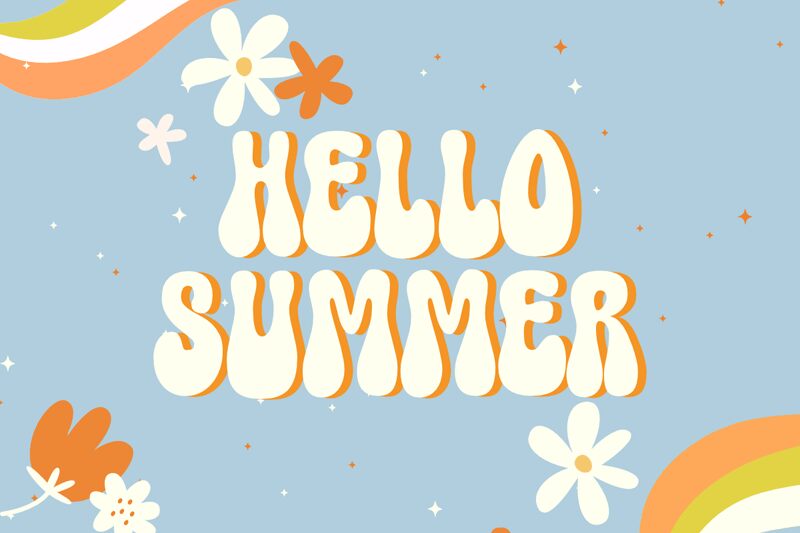
Super Summer
Super Summer, designed by fsuarez913, is a groovy display font that brings the retro vibes to your designs. Its bold and condensed characters exude a sense of energy and playfulness, making it ideal for projects that aim to evoke nostalgia or capture attention.
Whether you're designing posters for music festivals, creating branding for trendy cafes, or developing eye-catching social media graphics, Super Summer will add a touch of fun and uniqueness to your work. With its all-caps style and vintage-inspired flair, this font is sure to make your message stand out in the most groovy way possible.